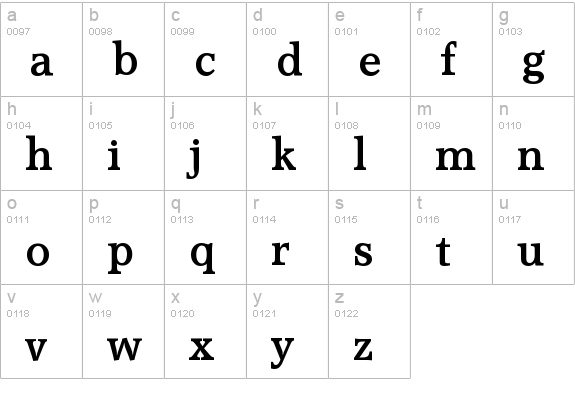
AccoladeSerial-Bold is a strong, high-contrast variant in the AccoladeSerial typeface family \xE2\x80\x94 well suited to headlines, attention-grabbing titles, and strong calls-to-action.
AccoladeSerial-Bold font is a bold and striking typeface that exudes confidence and elegance. Its strong lines and clean design make it perfect for headlines, titles, and branding projects that demand attention. With its modern and sophisticated look, AccoladeSerial-Bold is sure to make a lasting impression. The best part? This stunning font is available for free download at FontsMarket.com. Whether you're a designer looking to add a touch of sophistication to your projects or a business owner in need of a standout font for your branding, AccoladeSerial-Bold is the perfect choice. Don't miss out on this opportunity to elevate your design work with this beautiful and versatile font. Download it for free today and start creating stunning visuals that stand out from the crowd.